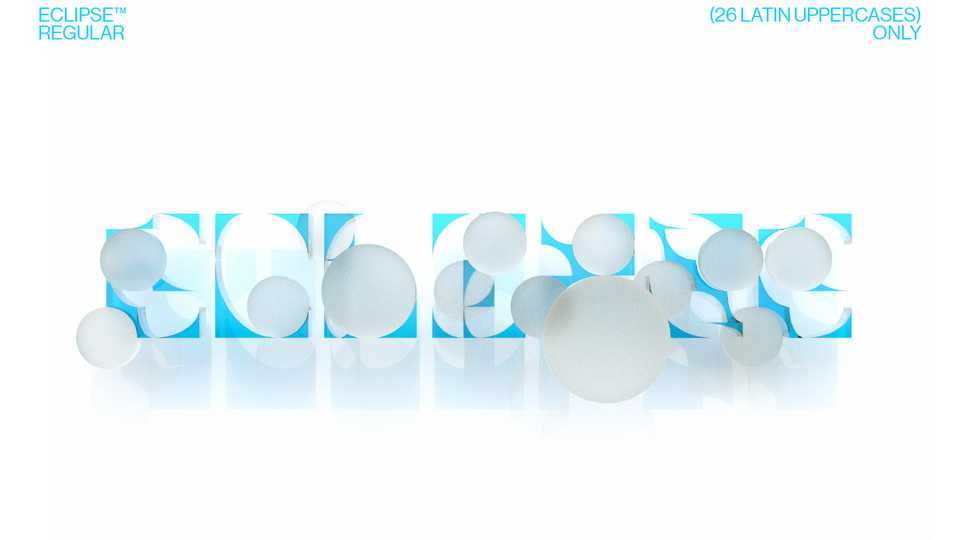
Download Eclipse font, a unique display typeface with both roundness and sharpness. Eclipse consists of only 26 Latin uppercase characters. Enjoy elegant letters that feel like thorns of beautiful flowers.
Designer: Dodam Seo